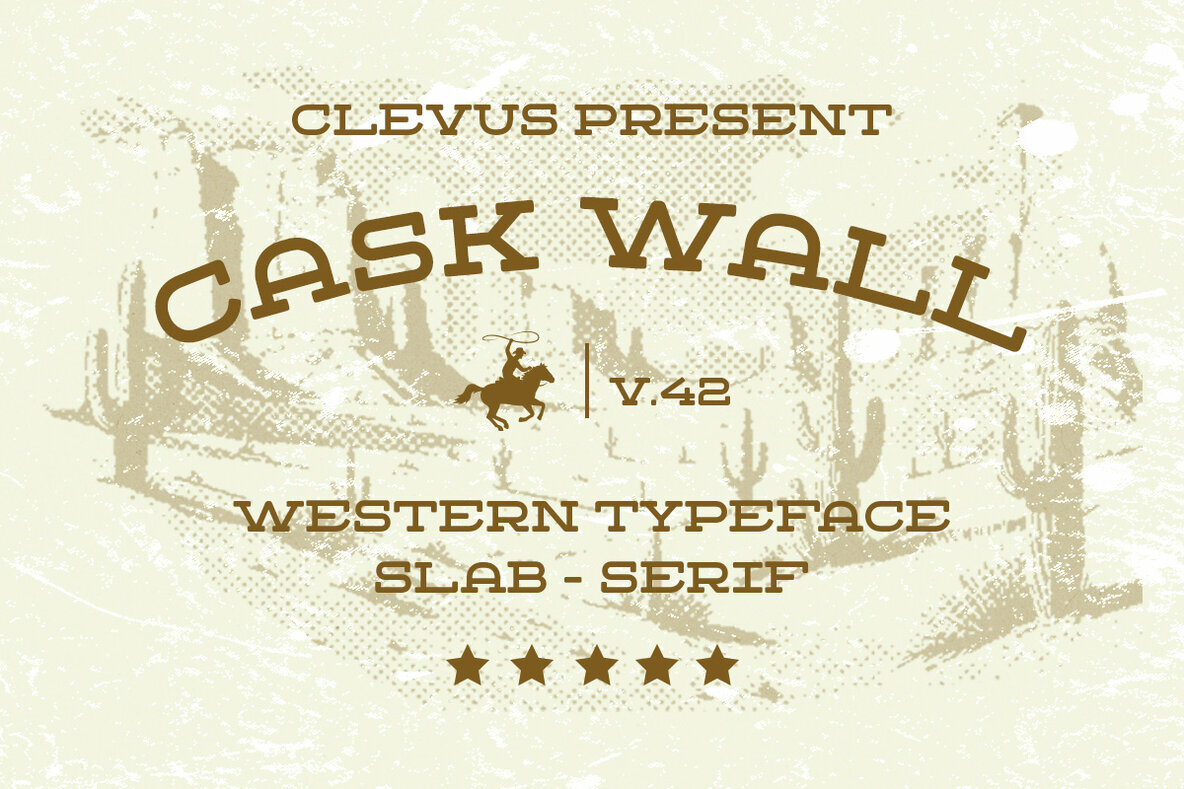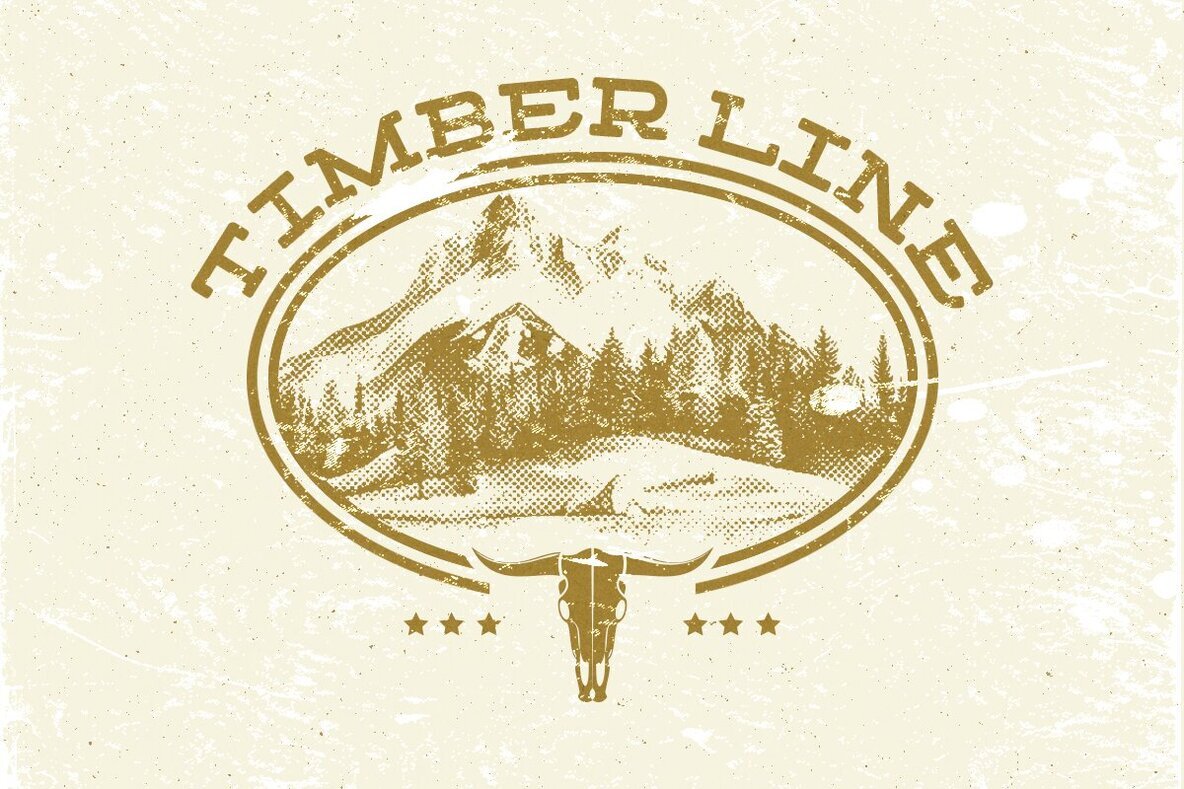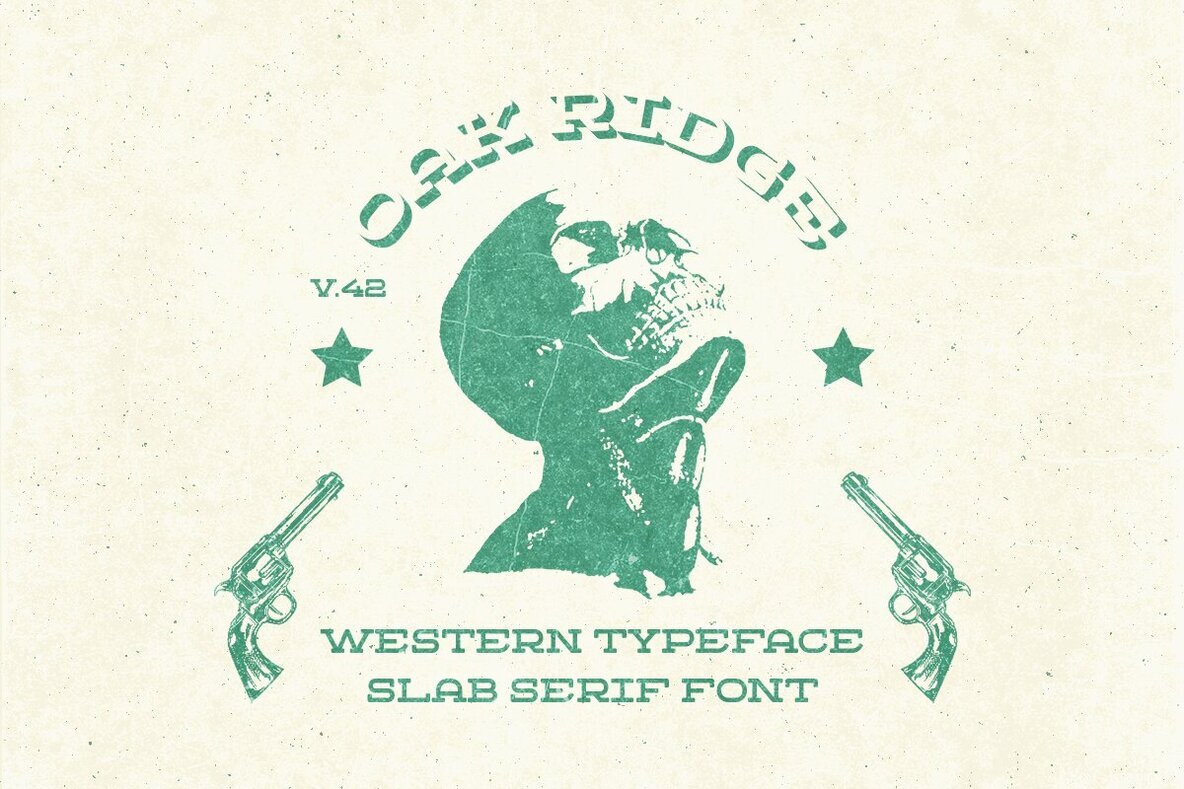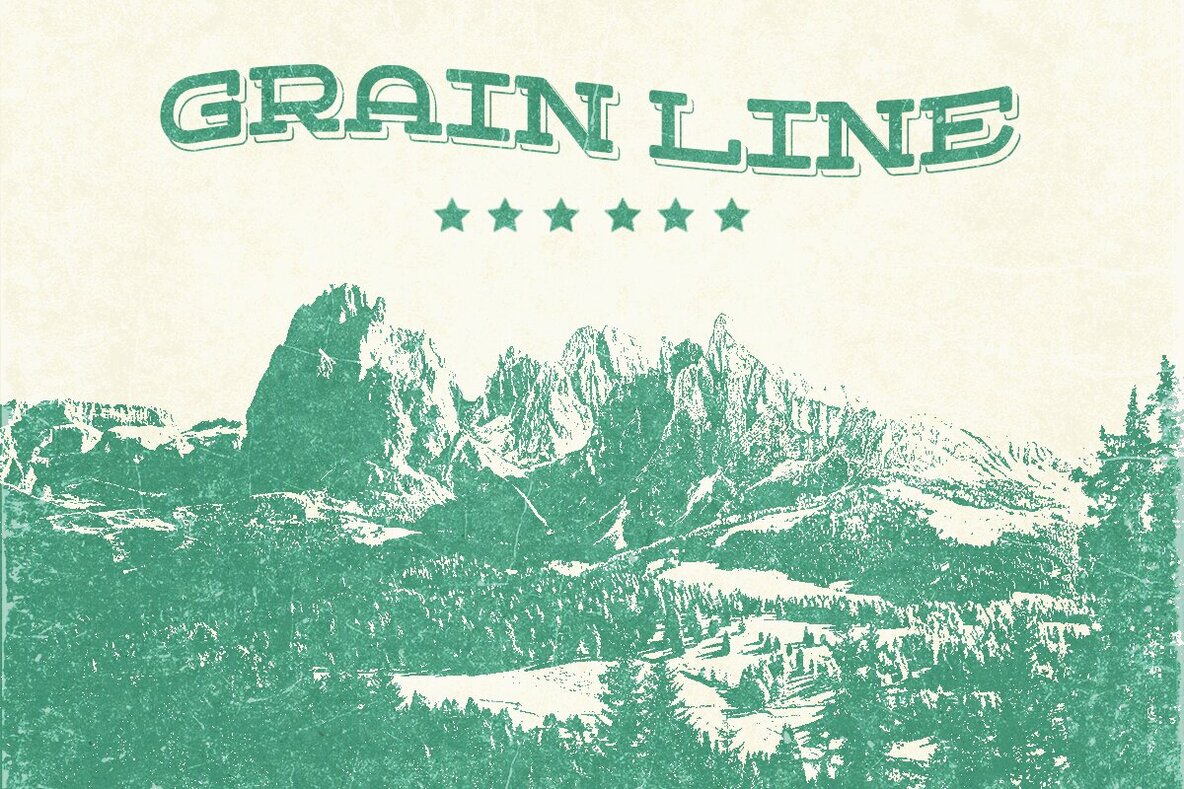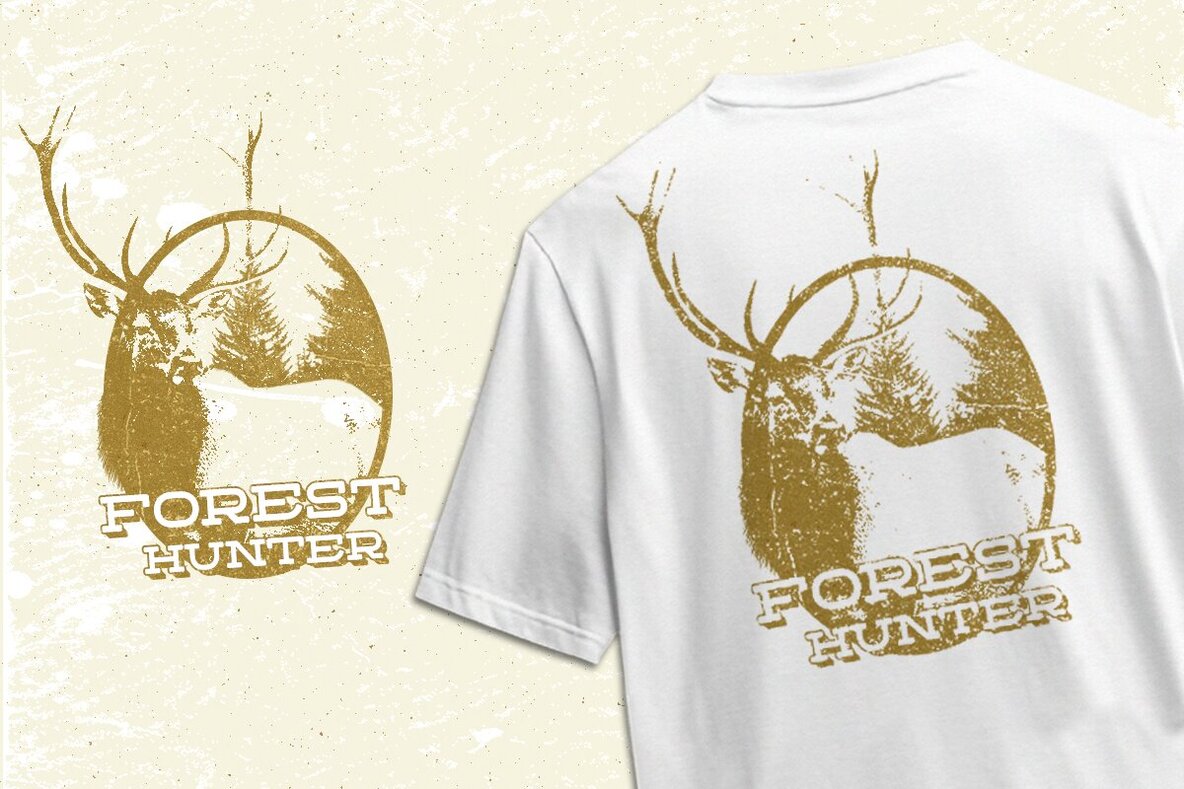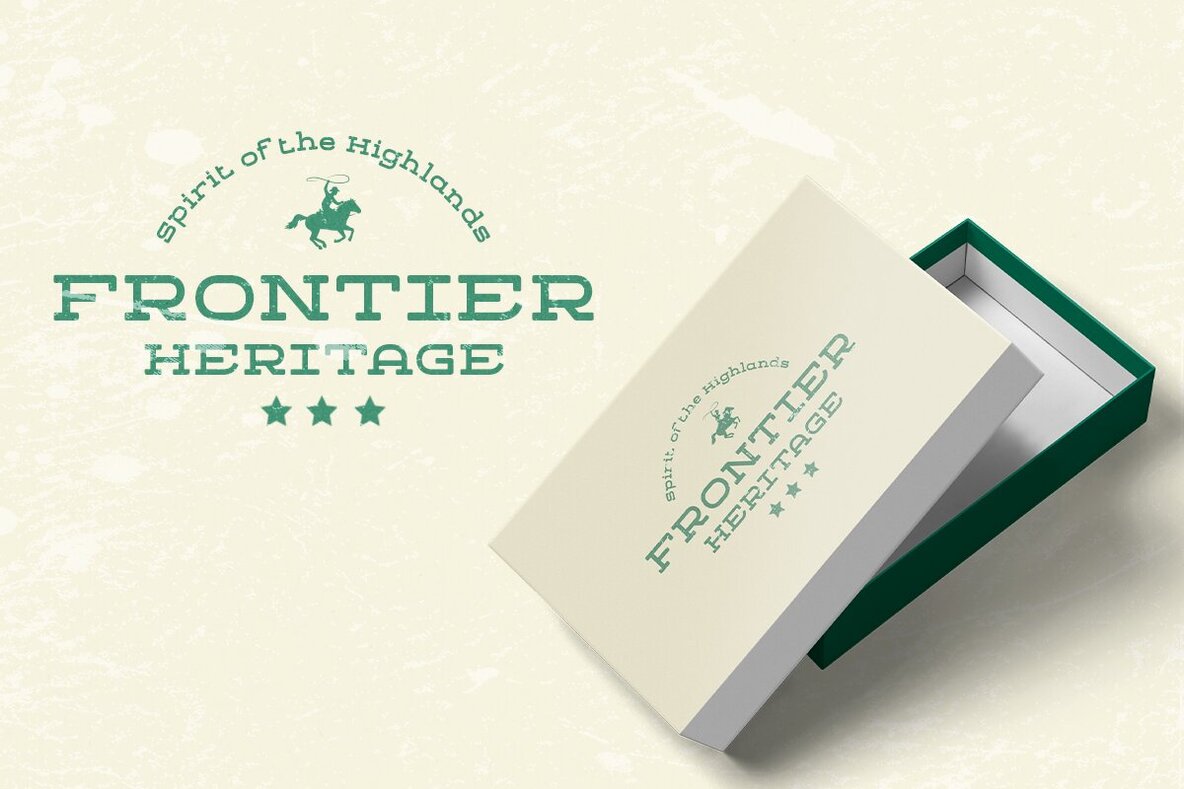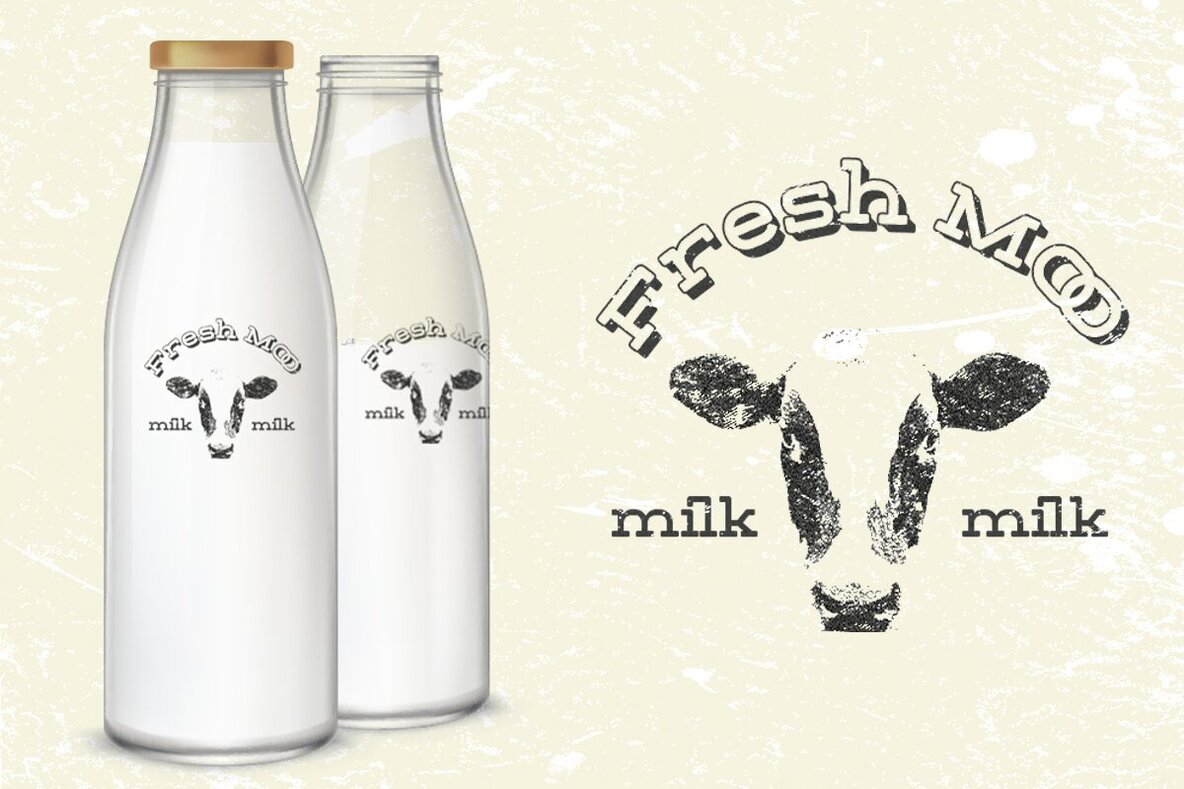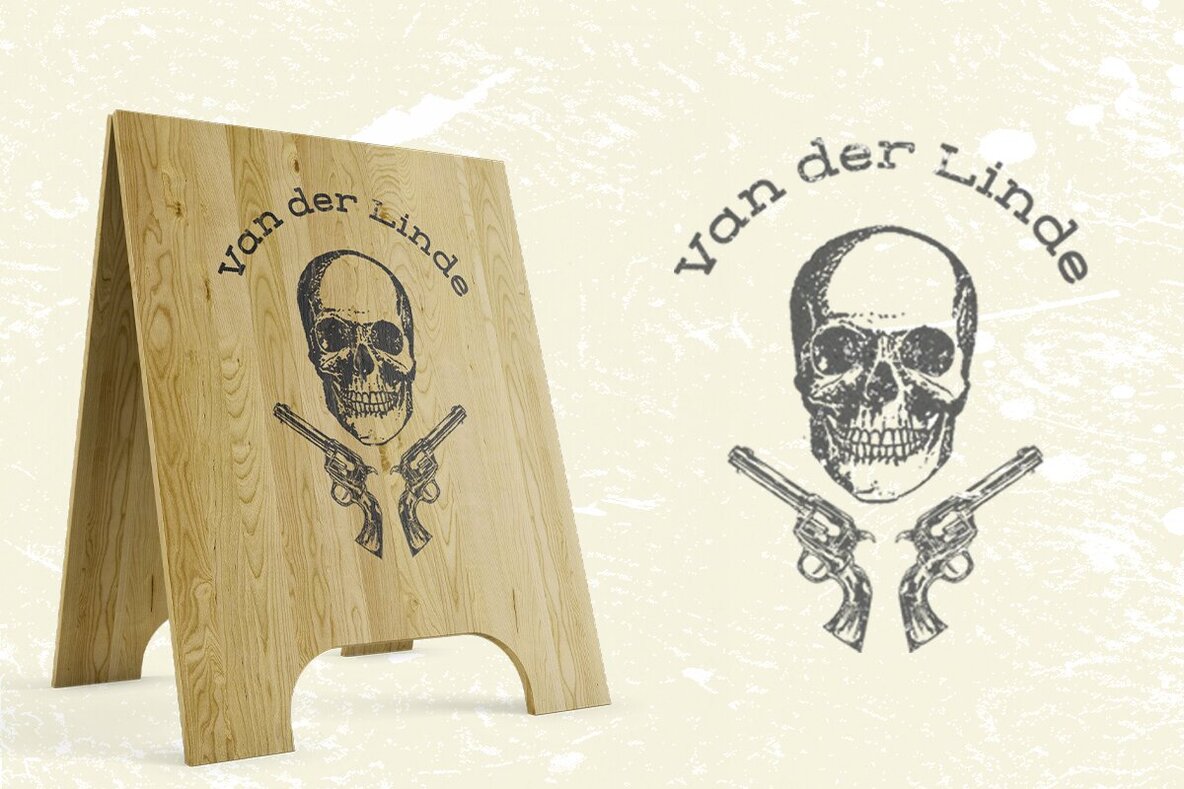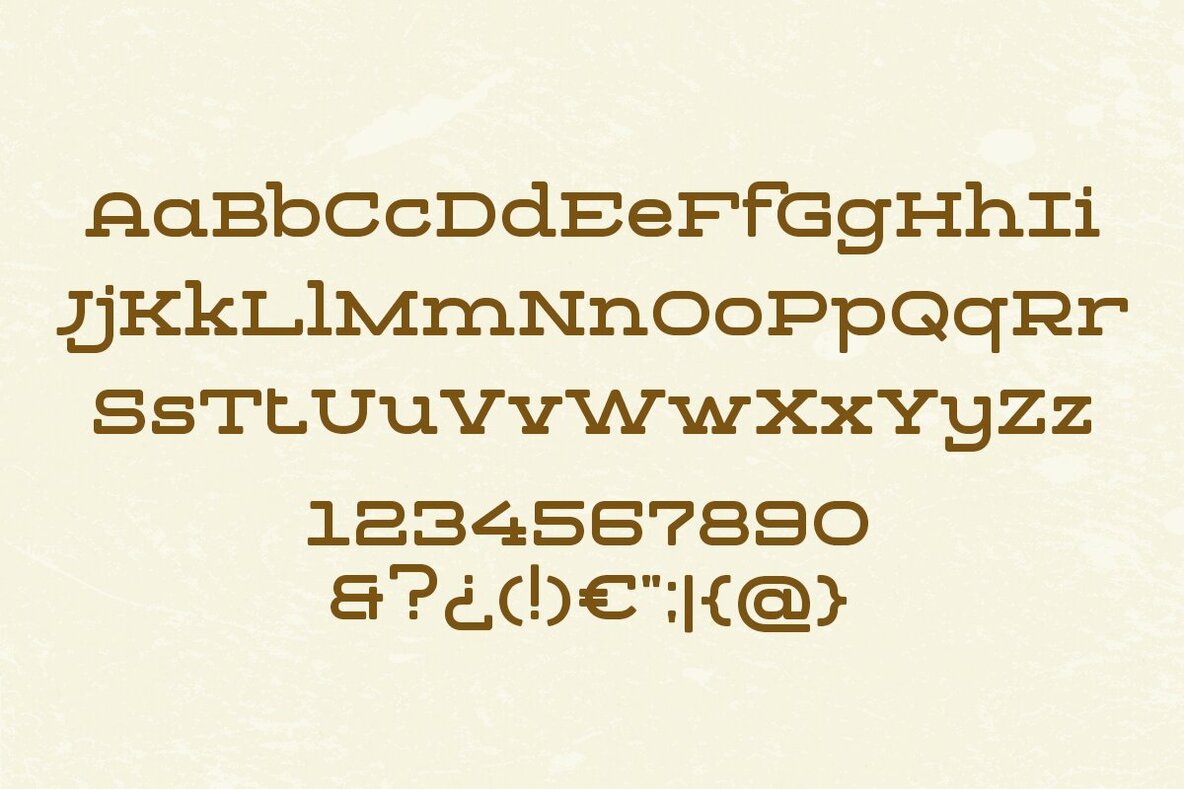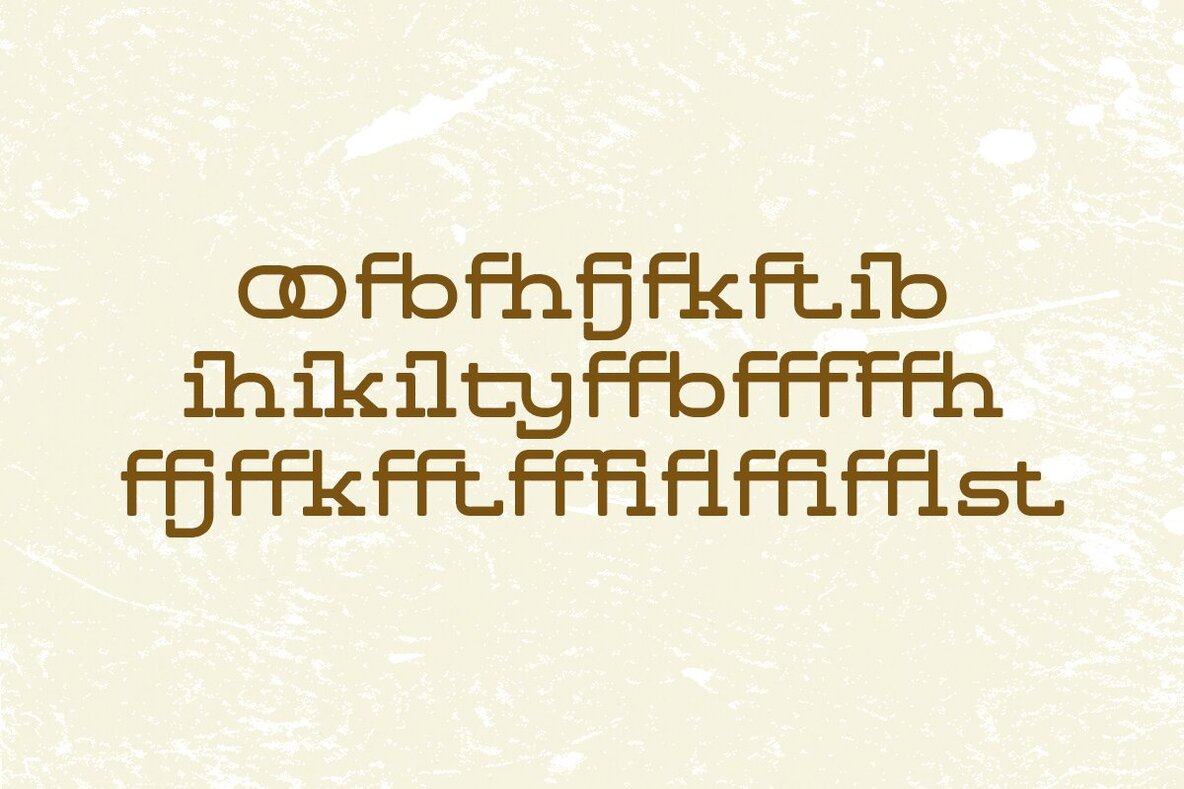
Cask Wall Font
Cask Wall Regular
Cask Wall infuses your designs with a robust Western flair through its bold slab-serif style and vintage texture. This font is ideal for creating rustic branding, enhancing the ambiance of coffee shops, crafting whiskey labels, and designing apparel prints with an outdoor-inspired touch. With its handcrafted spirit, Cask Wall provides authenticity and character, ensuring your creations exude both adventure and timeless appeal.Cask Wall: Rugged Elegance Meets Western Charm